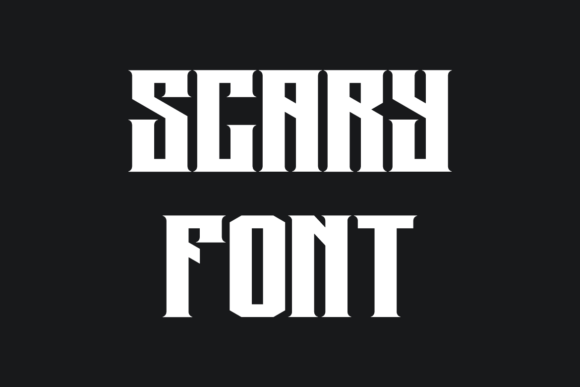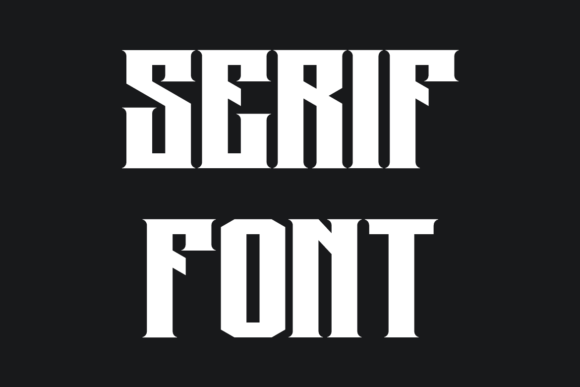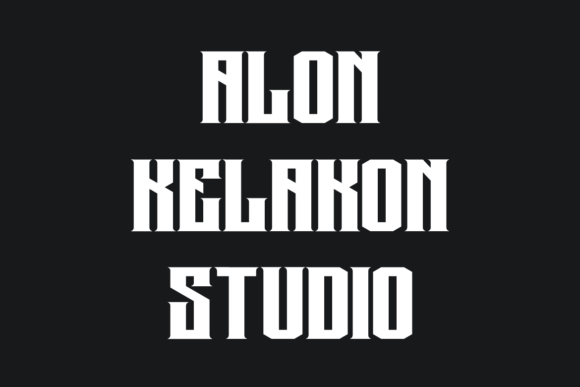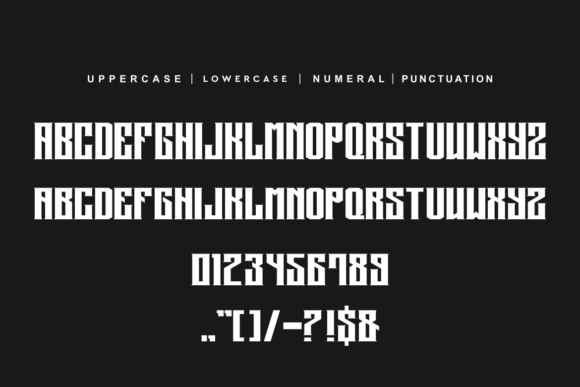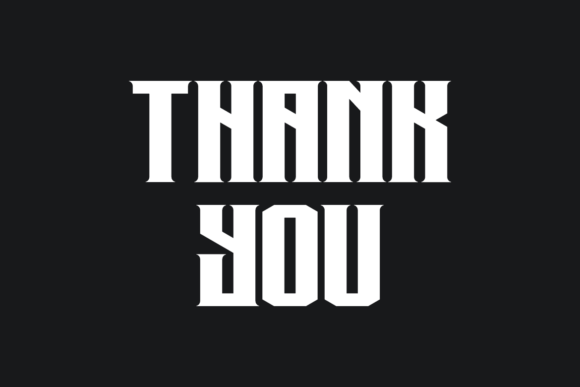
The Perfect Font for a Spine-Chilling Design
Have you ever been working on a design project, staring at a blank canvas, and suddenly, an idea strikes you? Maybe it’s a haunting theme, a creepy atmosphere, or a sense of foreboding that you want to convey to your audience. Whatever it is, the Black Classic Font is sure to help you bring your vision to life.
This bold, all-caps font is designed to command attention and create a sense of unease, making it the perfect choice for designers who want to create an eerie and terrifying atmosphere in their designs. With its dark presence, the Black Classic Font is a valuable tool for designers who want to take their designs to the next level. Whether you’re working on a horror-themed project or just want to add a touch of edginess to your design, the Black Classic Font is sure to deliver.
Key Features of Black Classic Font
- Font Family: Black Classic Font is a serif font family with a classic and elegant design.
- Unique Characteristics: Black Classic Font features a unique combination of classic and modern elements, with a distinctive x-height and a subtle flair at the terminals of the letters.
Black Classic Font Review
At first glance, the Black Classic Font seems like a timeless choice, reminiscent of traditional typographic styles. ✨ I appreciate the elegant feel it brings to any layout, making it perfect for use in publications, signage, and even digital interfaces.
- ✨ Classic feel: The Black Classic Font is a great option for those who want a font that exudes a sense of tradition and sophistication.
- ✨ Versatility: It works well in a variety of contexts, from print materials to digital displays.
However, there are a few limitations to consider: ⚠️ The font may not be the best choice for modern or tech-savvy designs, as it can feel somewhat dated. Additionally, the font may not be as readable at smaller sizes, which can be a concern for digital applications.
- ⚠️ Limited modern appeal: The Black Classic Font may not be the best choice for cutting-edge designs or those that require a more modern aesthetic.
- ⚠️ Readability issues: The font may not be as readable at smaller sizes, which can be a concern for digital applications.
Overall, the Black Classic Font is a solid choice for those who want a timeless, elegant feel. While it may not be the best option for every design scenario, it’s certainly worth considering for traditional or classic designs.
The Black Classic Font is commonly used for:
- Business cards and company letterheads
- Newsletters and brochures
- Book covers and title pages
- Wedding invitations and event materials